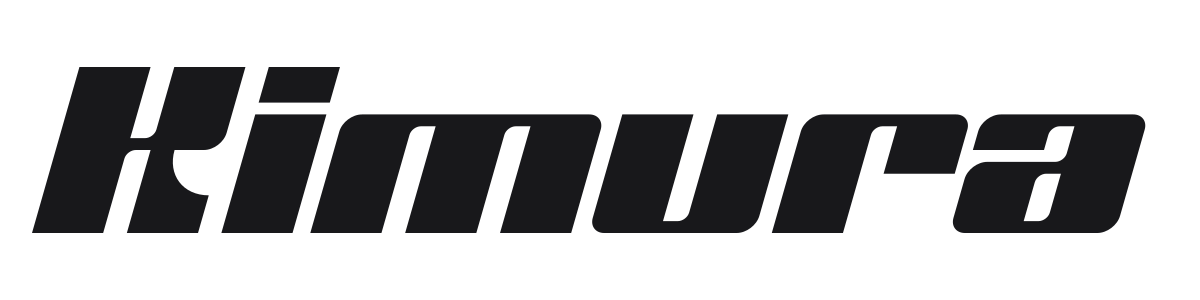
Kimura
Kimura is a heavy oblique display sans built around a strong tension between flat horizontal strokes and sharp vertical cuts. The extreme slant and wide proportions give it a sense of forward momentum, making it feel at once retro-futuristic and boldly mechanical. It works best large, where the contrast between its thick and thin axes reads clearly as a logo or headline.